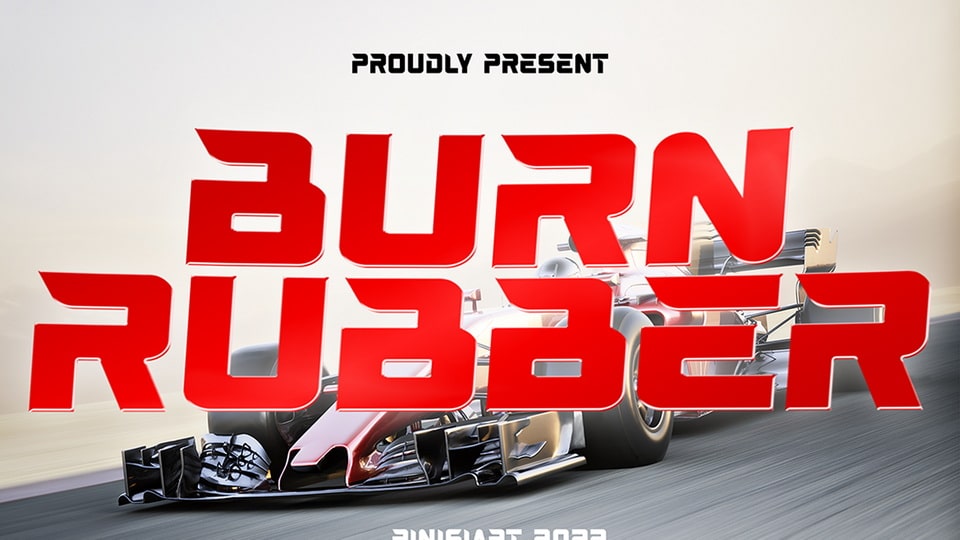
Download Burn Rubber font, a speedy sporty display typeface. A fast and competitive world is what Burn Rubber is all about. An all-caps font that will emphasize the need for speed in your project.